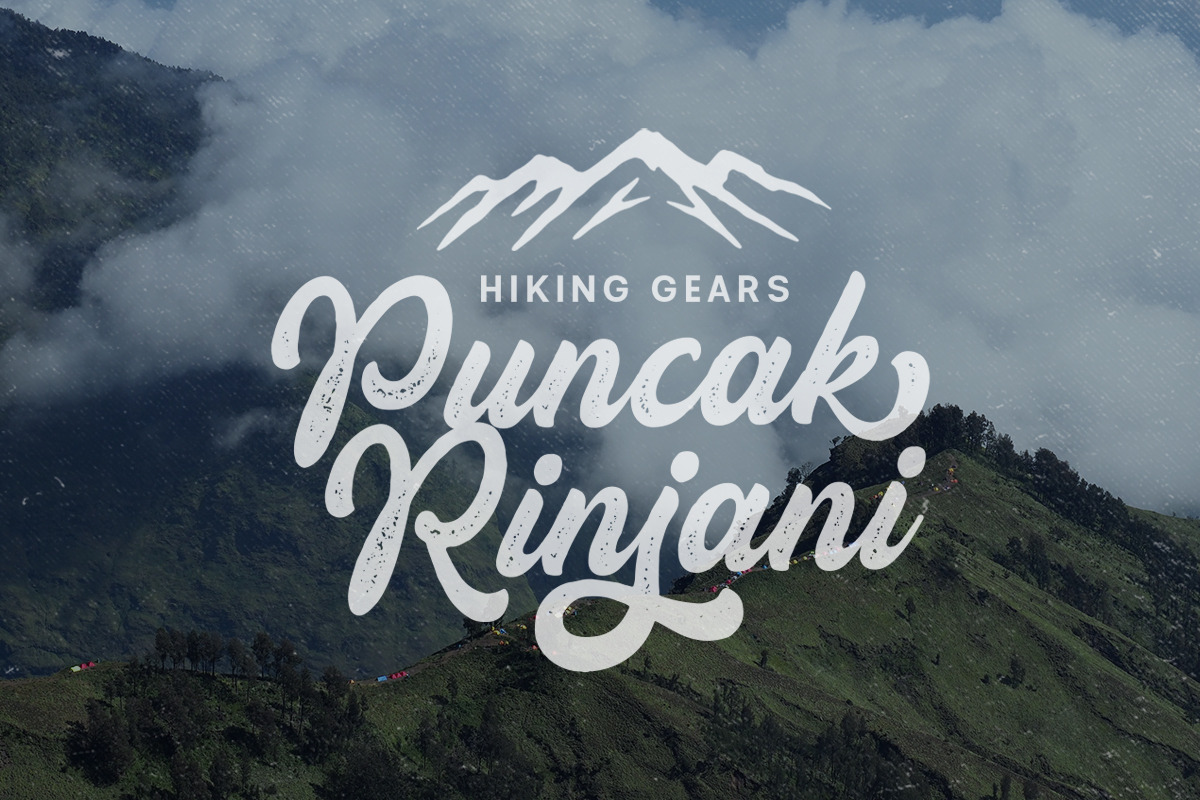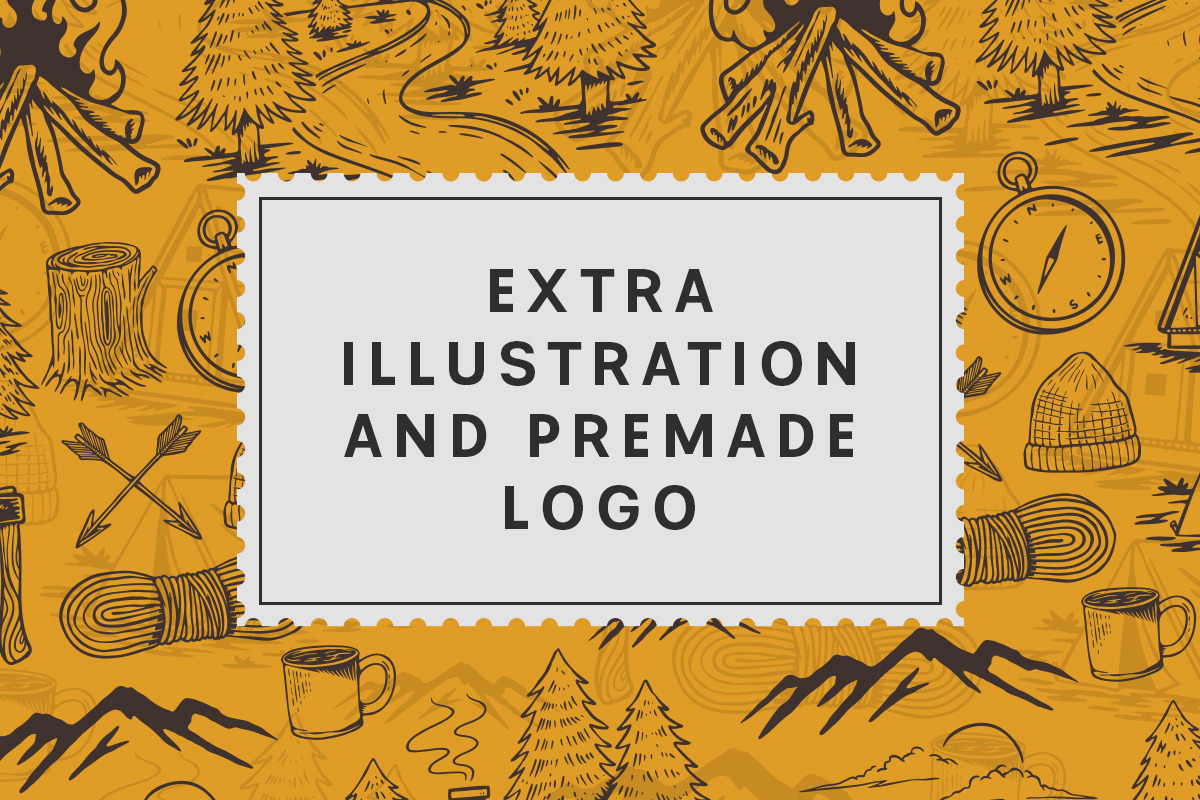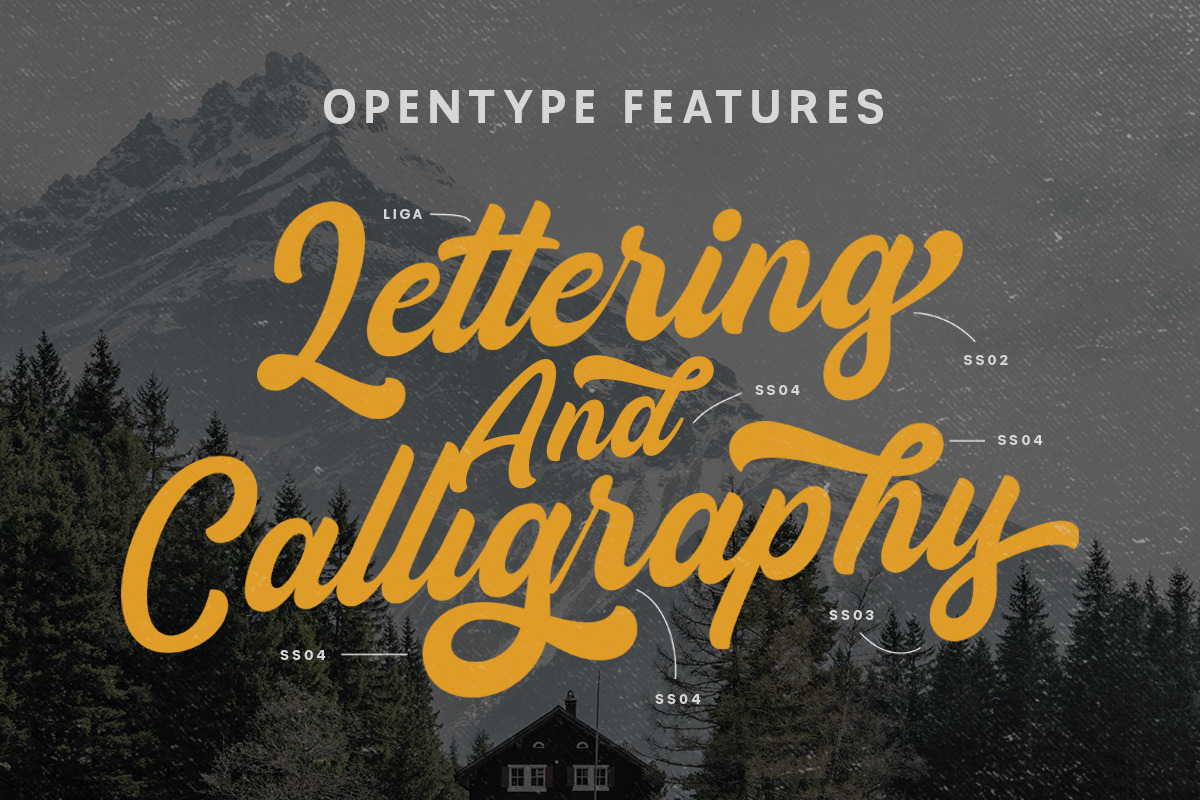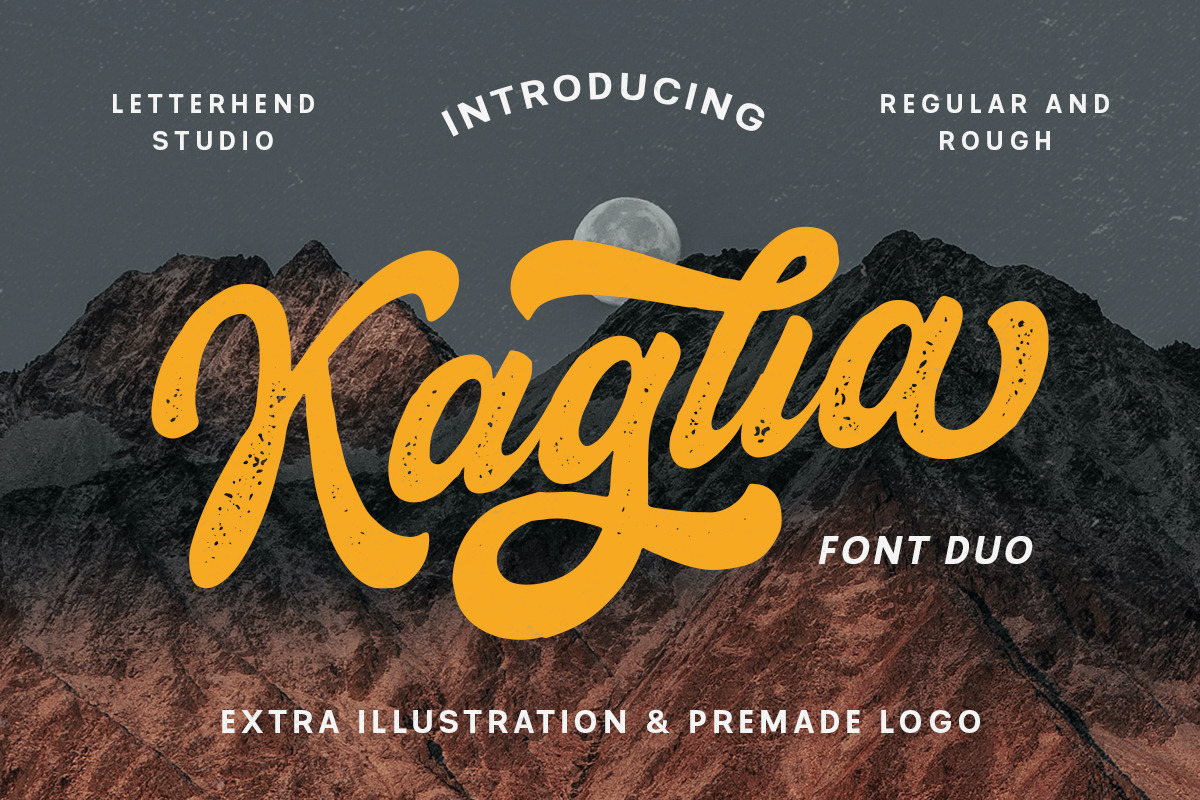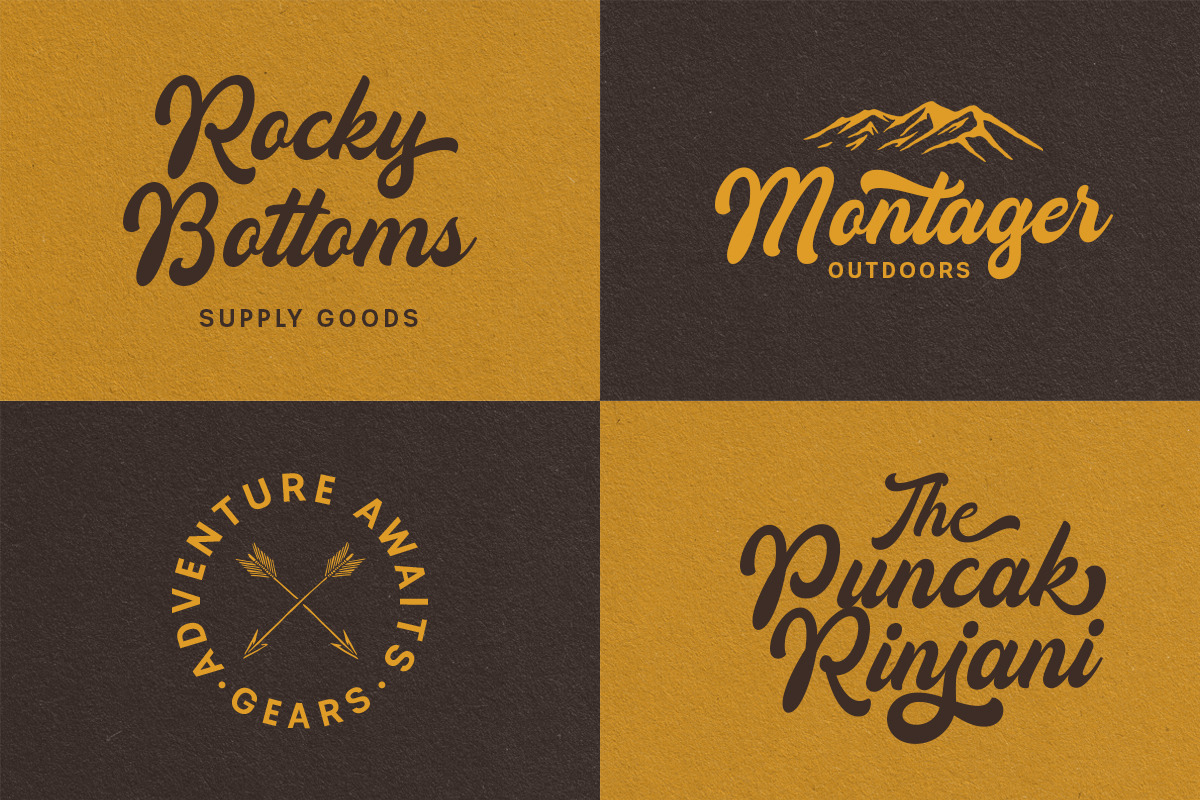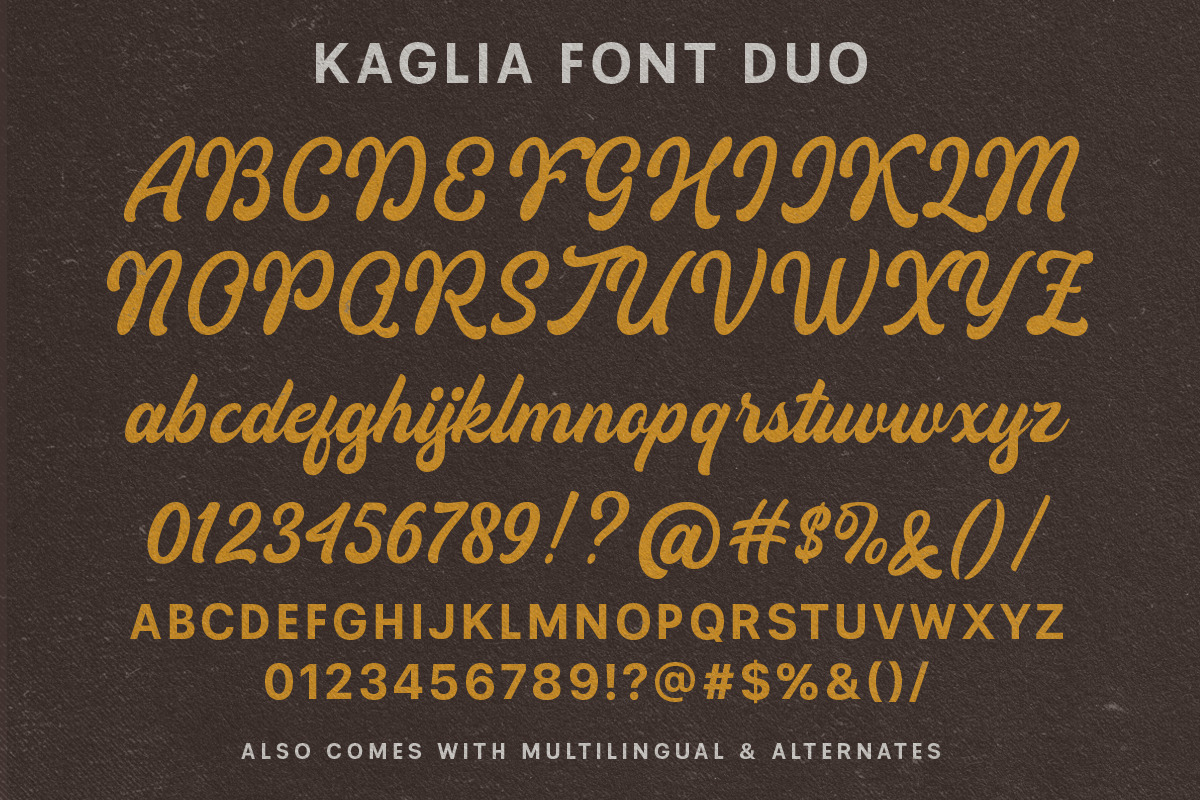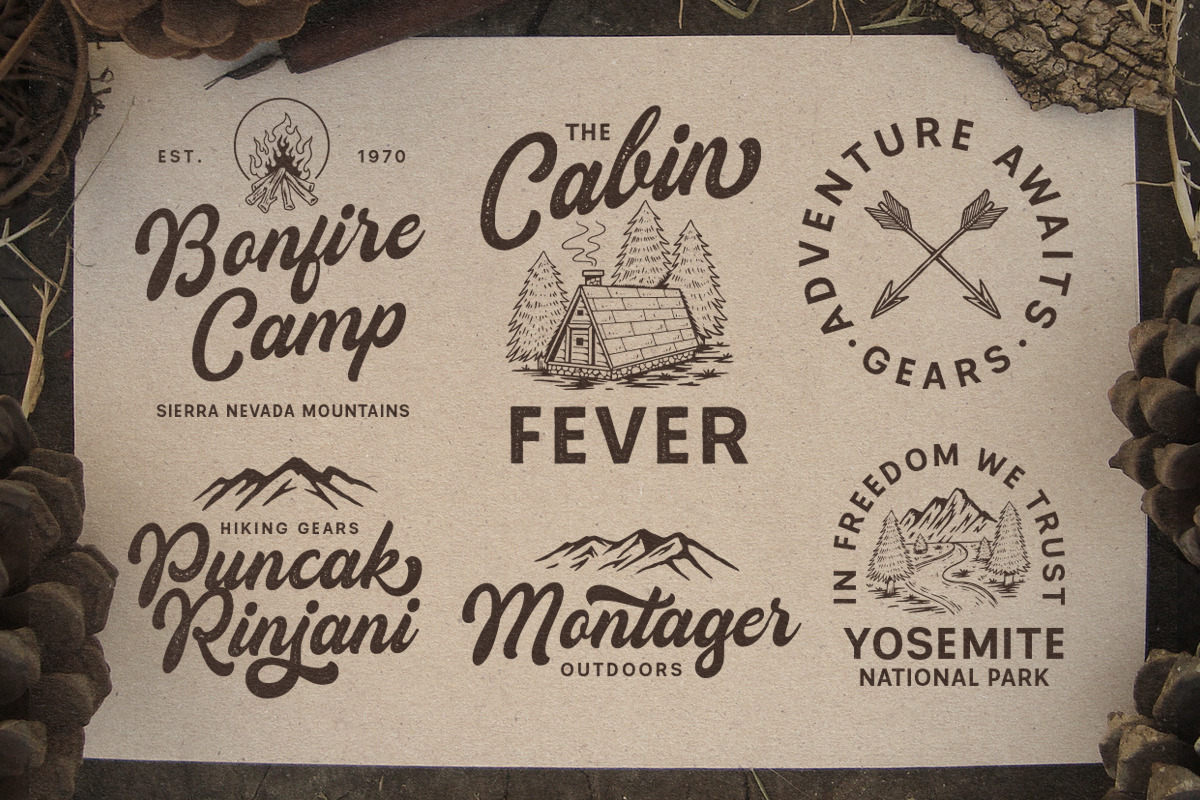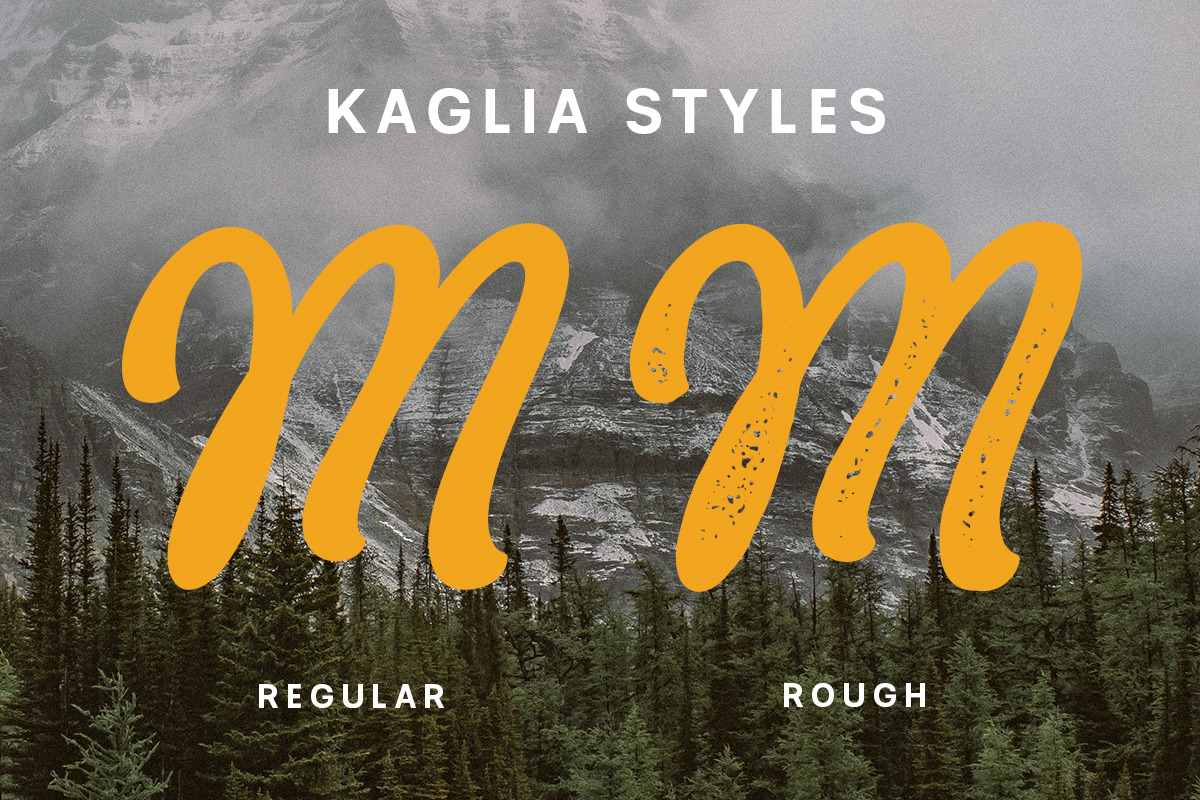
Kaglia is a font duo package contain a hand drawn bold script and sans serif which looks great to be paired especially for vintage and adventure theme! It also comes with extra illustration and premade logo! This font duo is purposely made for headline, display or logotype, and signature which need a standout appearing. This font is also suitable to be applied especially in logo, and the other various formal forms such as invitations, labels, logos, magazines, books, greeting / wedding cards, packaging, fashion, make up, stationery, novels, labels or any type of advertising purpose. Features : - Kaglia Script Regular and Rough - Kaglia Sans Regular and Rough - Illustration and premade logo - uppercase & lowercase - numbers and punctuation - multilingual - alternates & ligatures - PUA encoded We highly recommend using a program that supports OpenType features and Glyphs panels like many of Adobe apps and Corel Draw, so you can see and access all Glyph variations. How to access opentype feature : letterhend.com/tutorials/using-opentype-feature-in-any-software/ Email us to  if you need something! Happy Designing! | Kaglia - Font Duo + Extras | Letterhend Studio